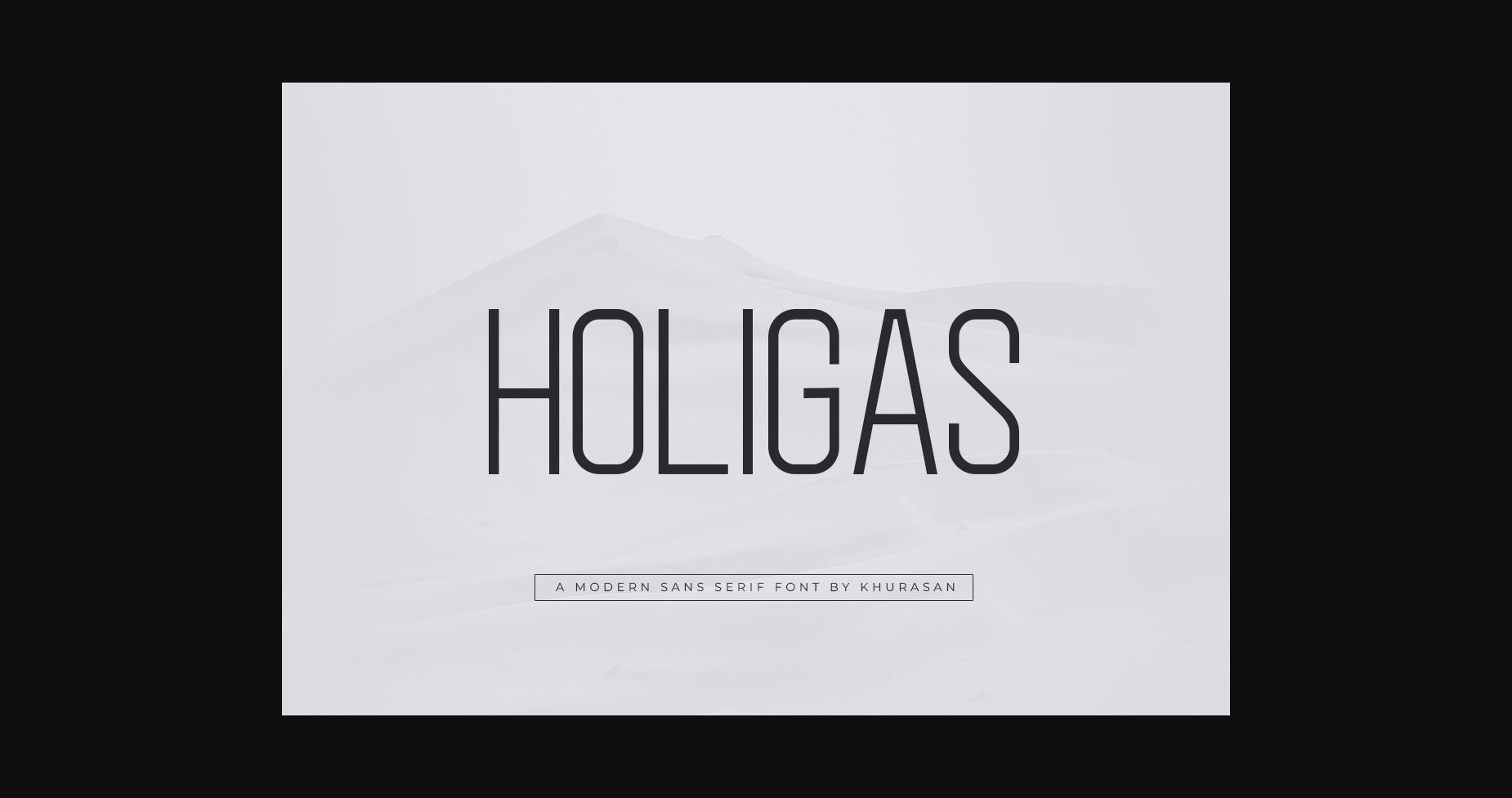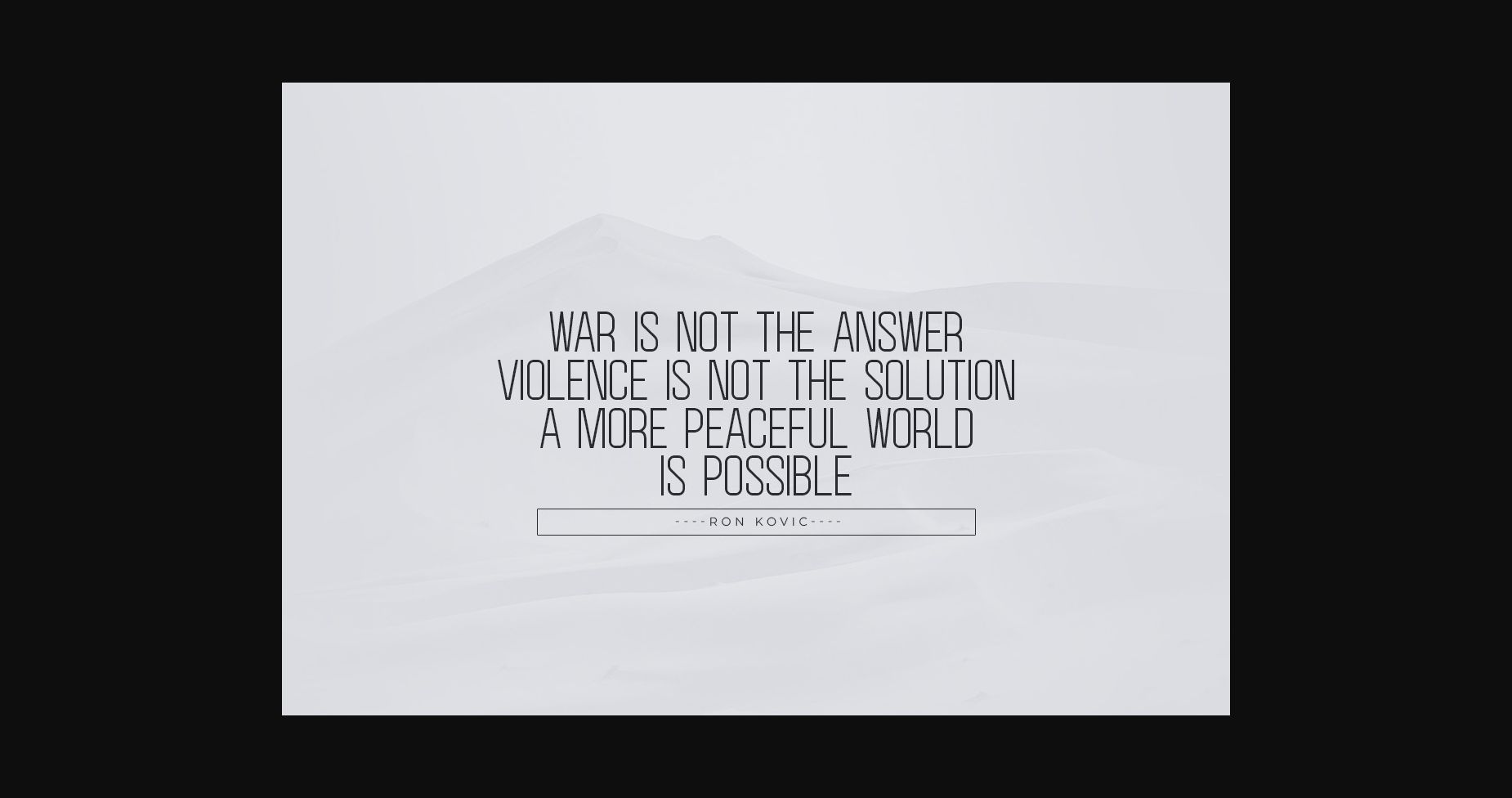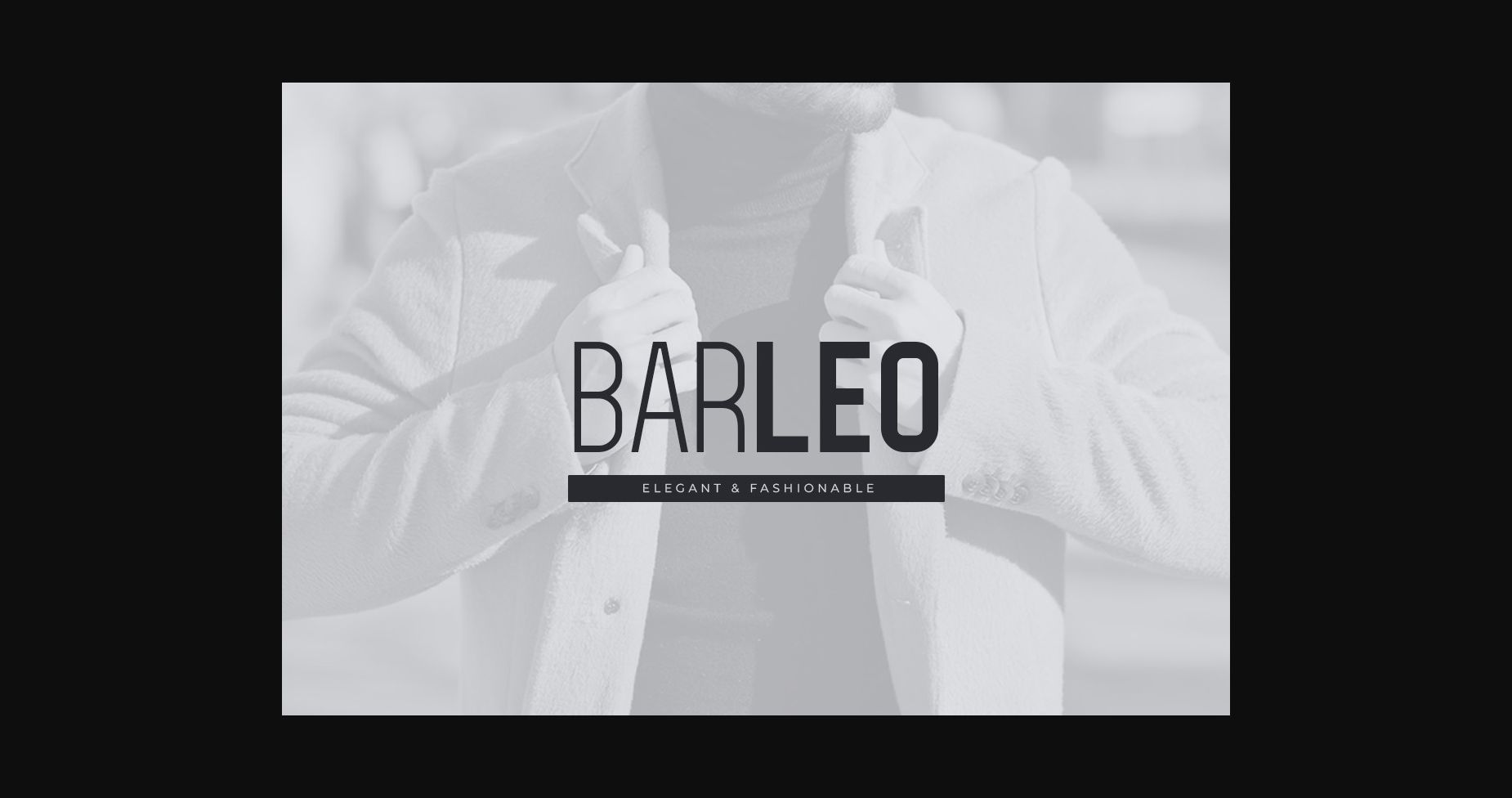
About Holigas Font
Holigas is a modern, clean sans serif font with a unique, stylish appearance. It can easily be matched to an incredibly large set of projects, so add it to your creative ideas and notice how it makes them stand out!